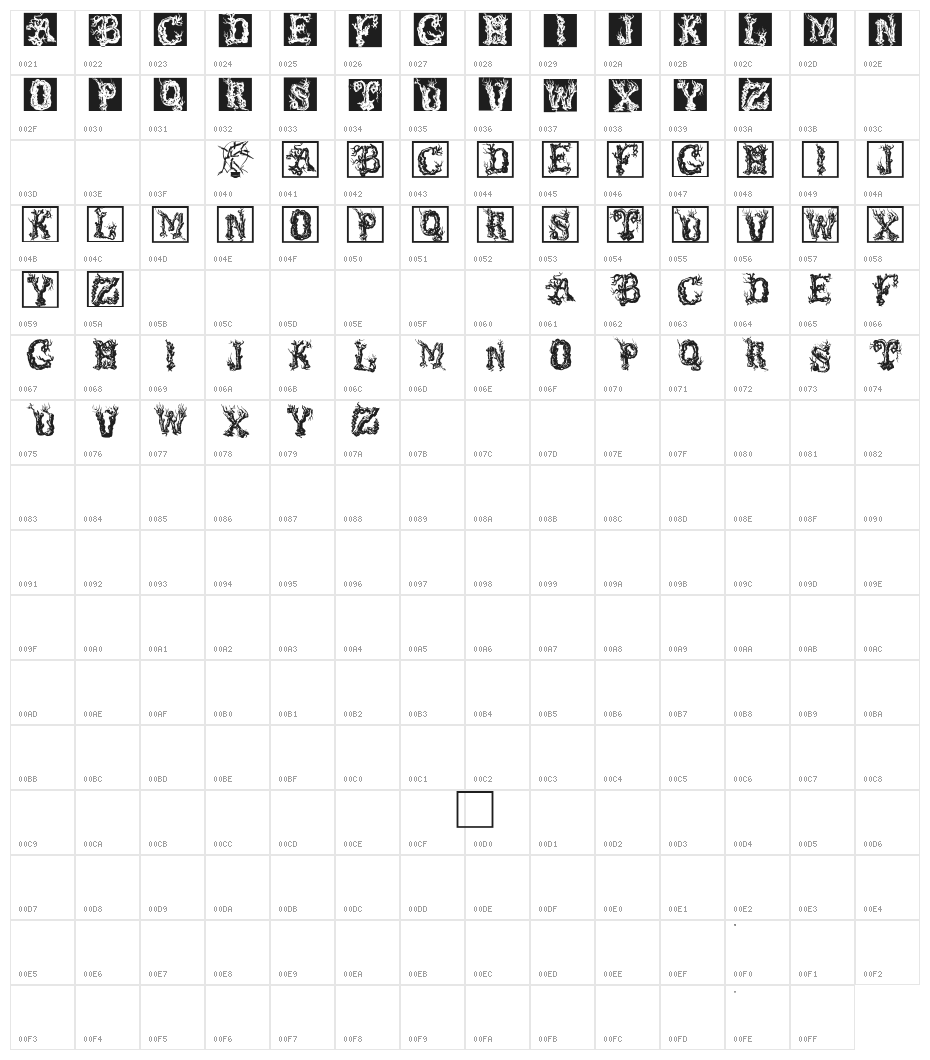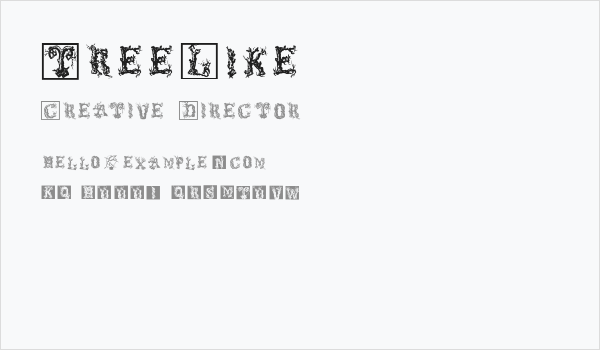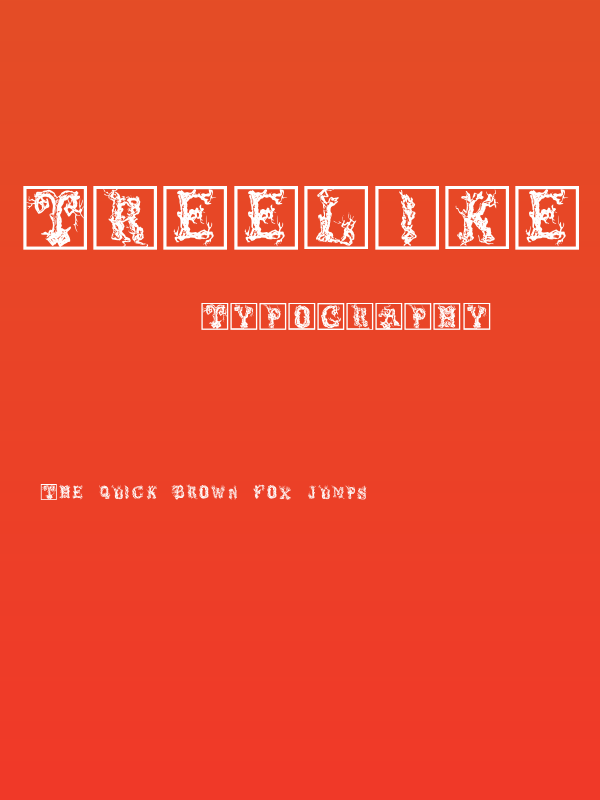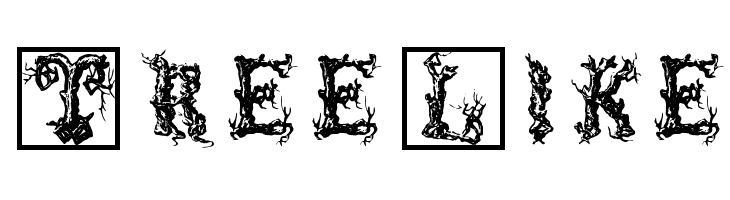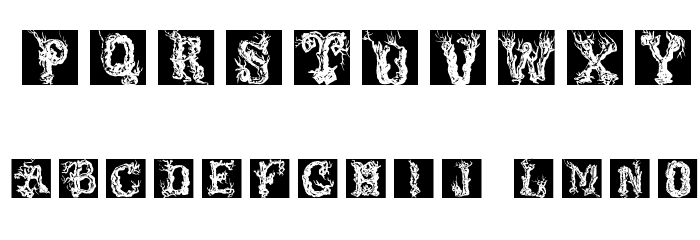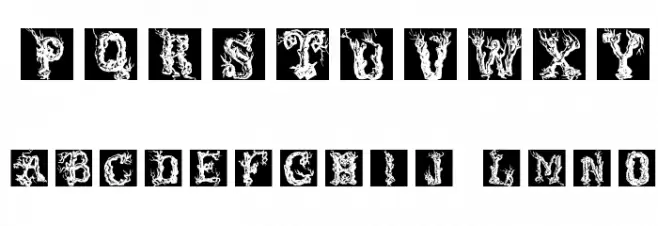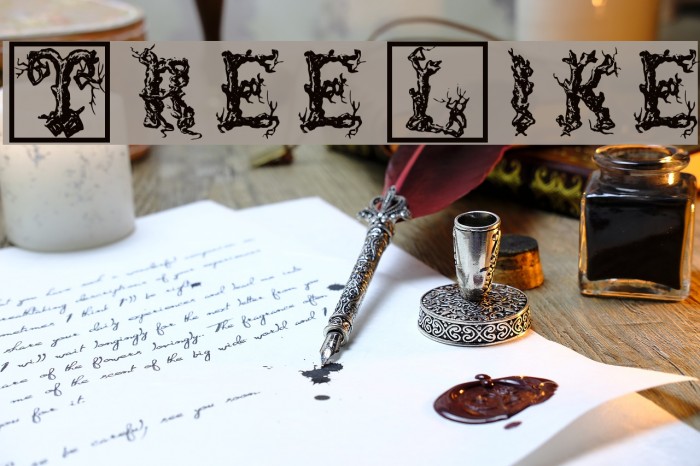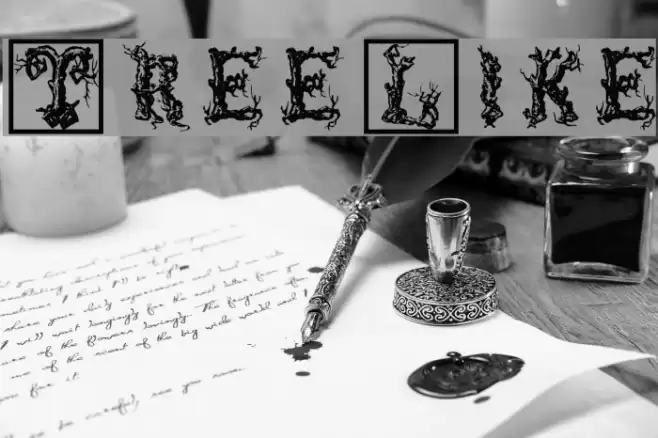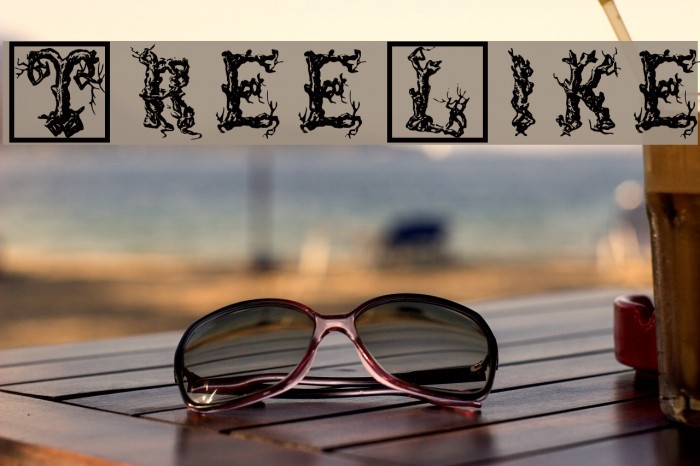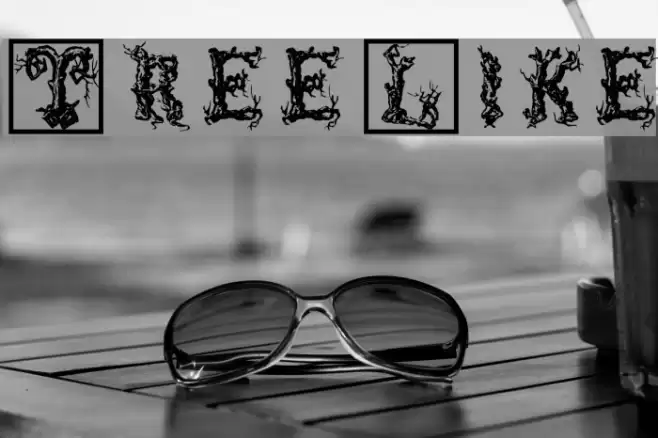
TreeLike Font
TreeLike Description
This font features a unique and intricate design where each character is crafted to resemble tree branches and roots, giving it a natural and organic appearance. The letters are highly decorative, with each one appearing as if it is growing out of the ground, complete with twisting vines and detailed foliage. This style creates a sense of mystery and fantasy, making it ideal for projects that require a touch of nature or a whimsical theme. The complexity of the design may affect readability at smaller sizes, but it stands out as a striking display font.
| Proposed Projects | Ideal for fantasy book covers, nature-themed posters, or environmental campaign materials. |